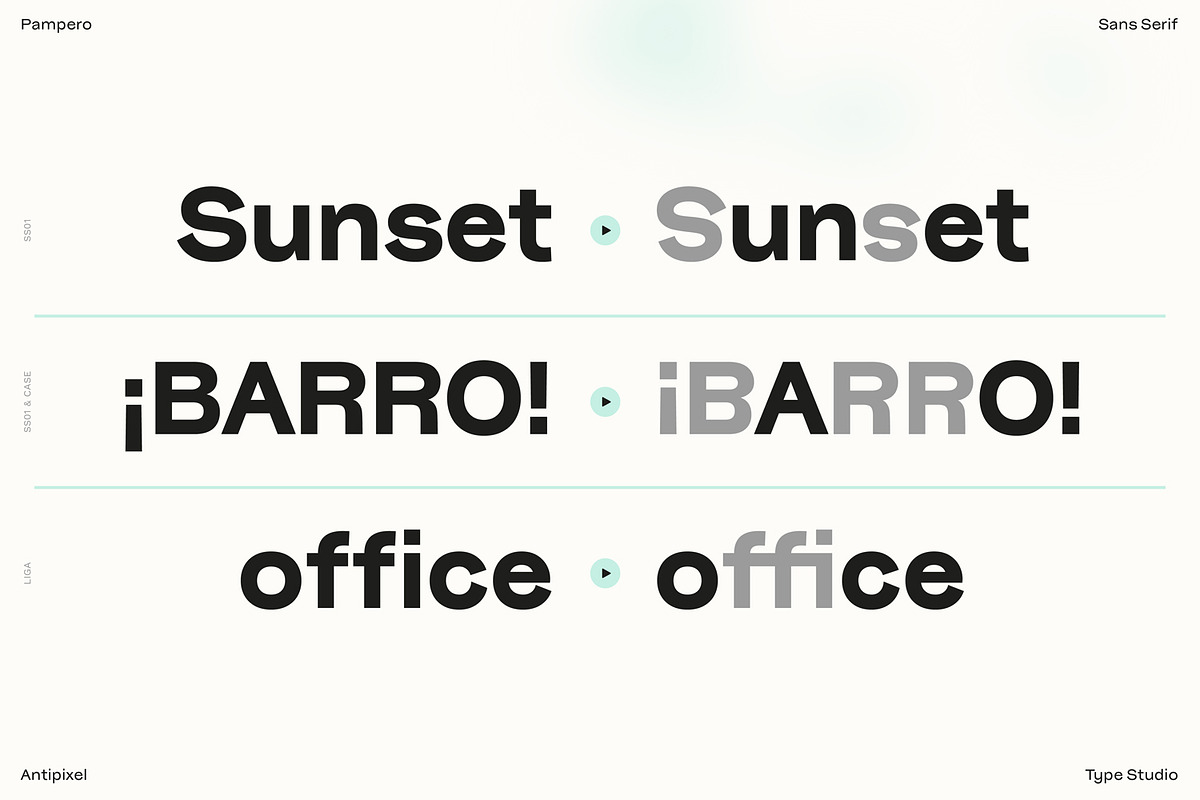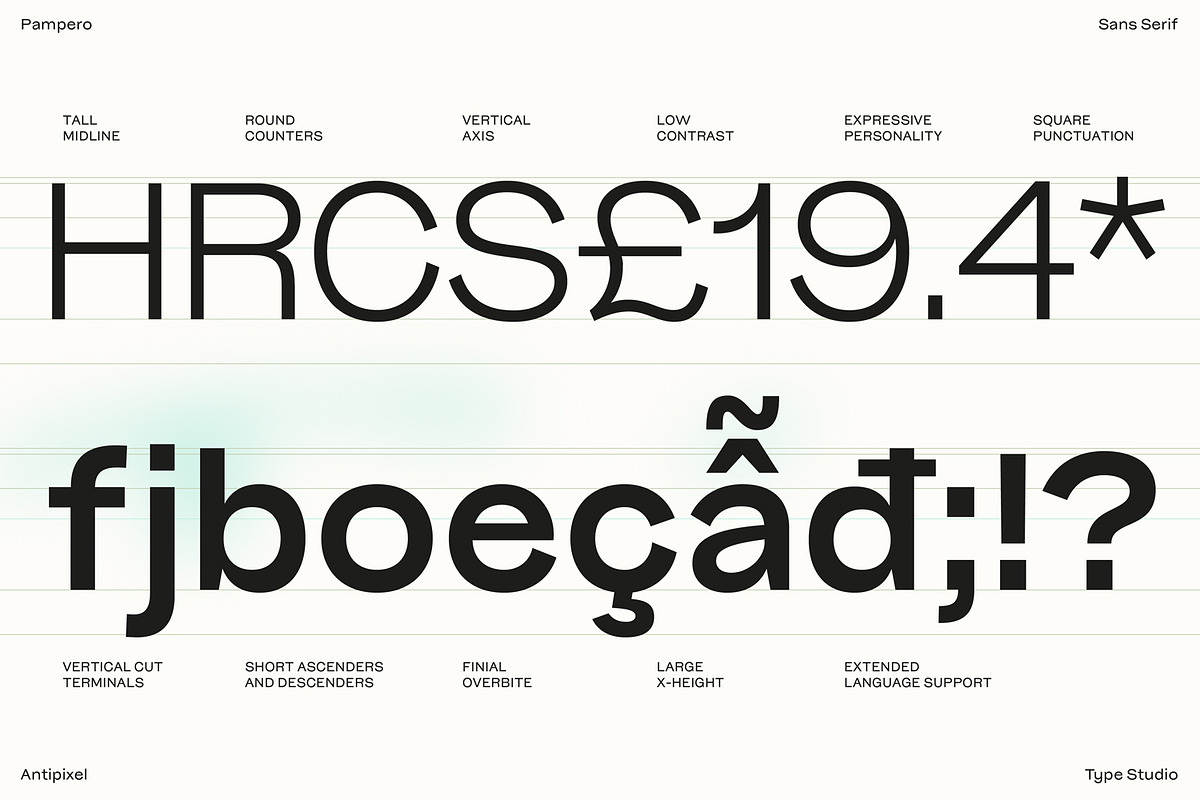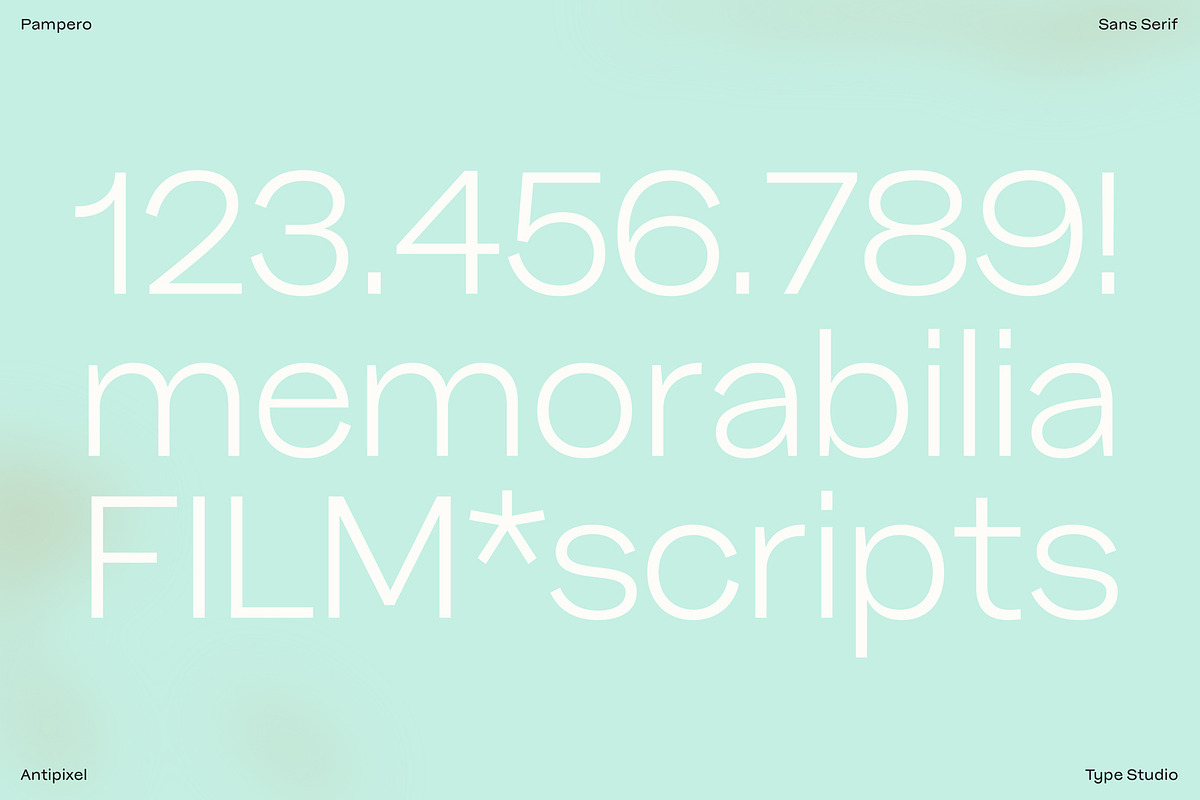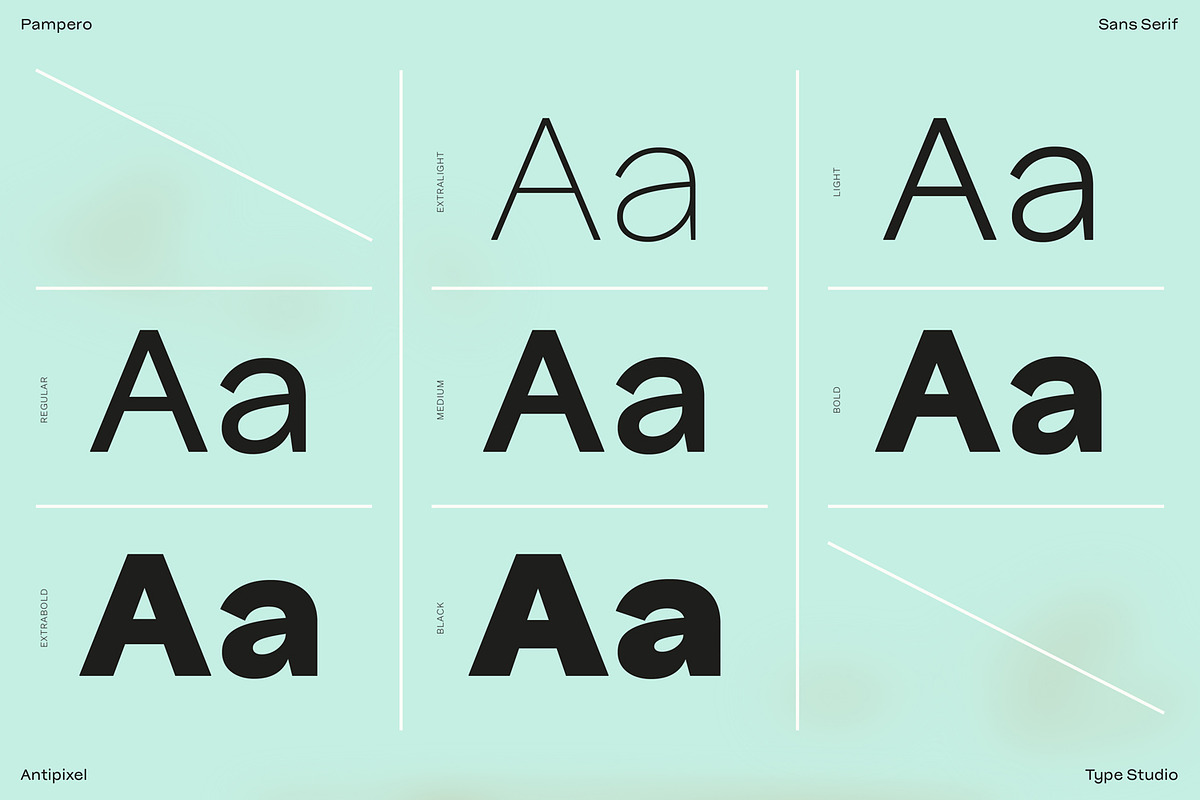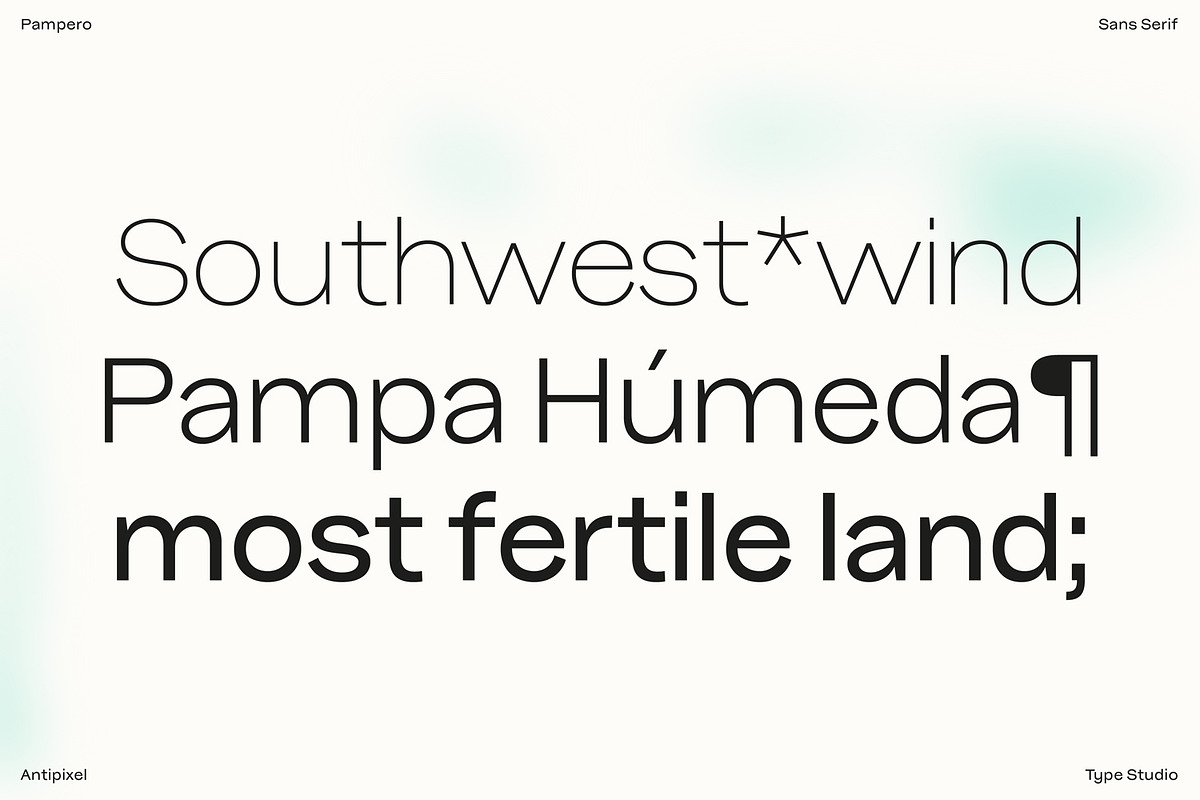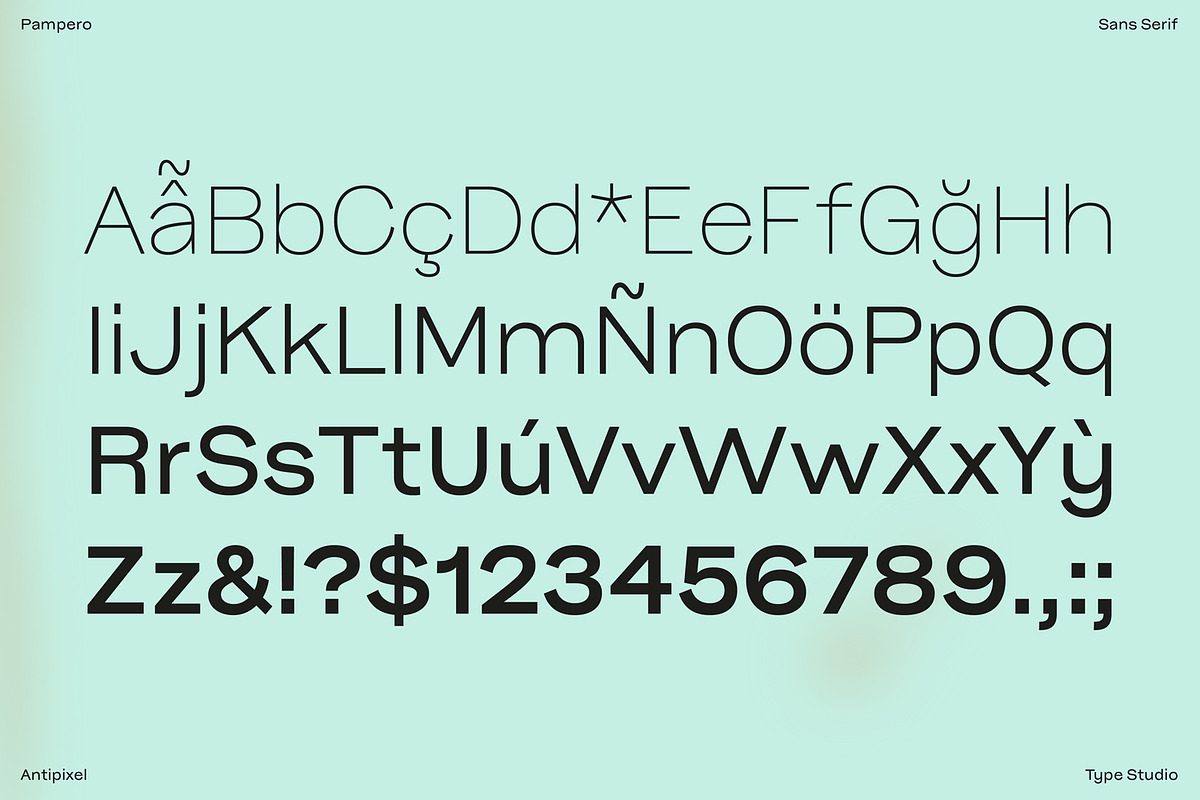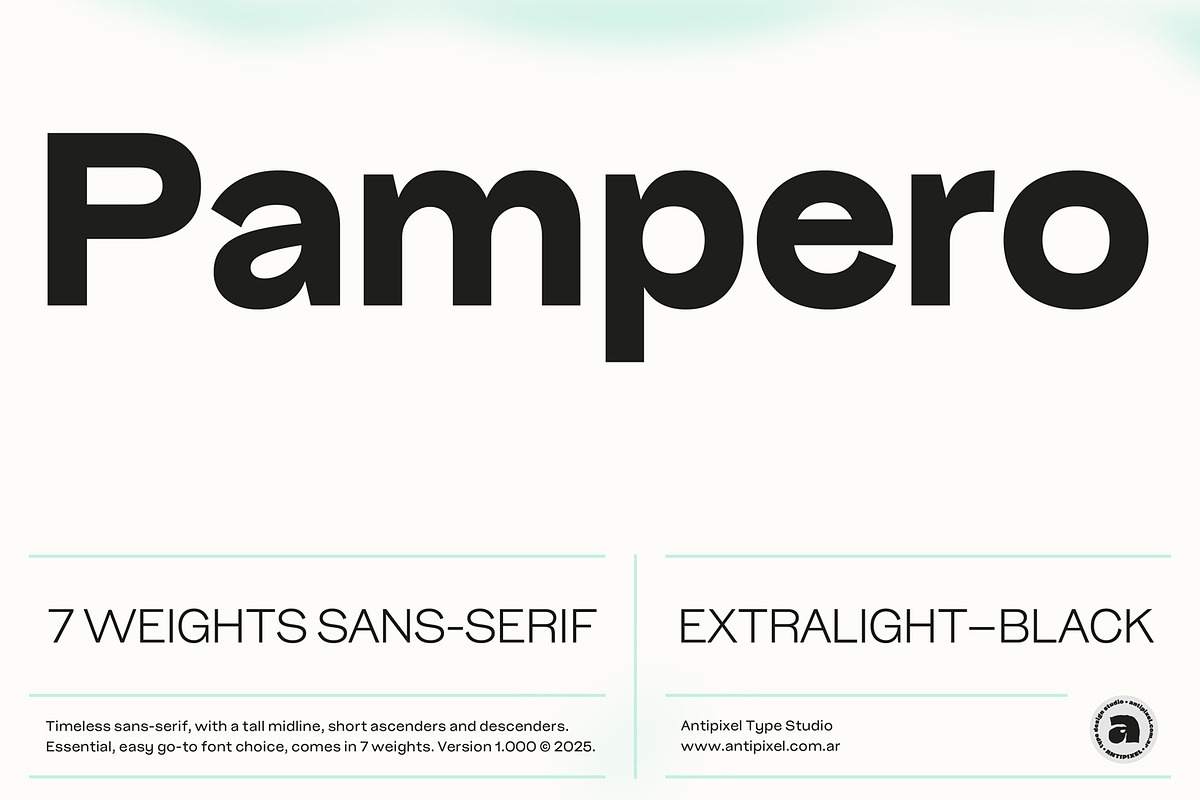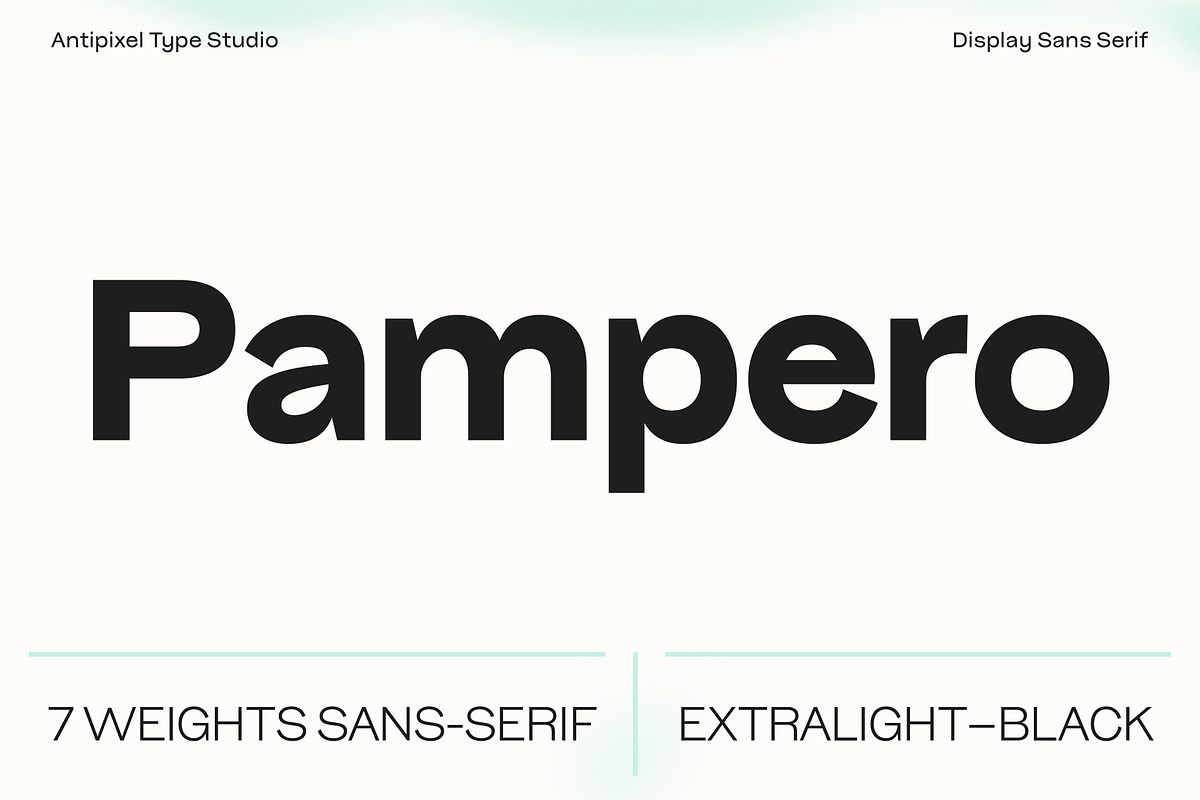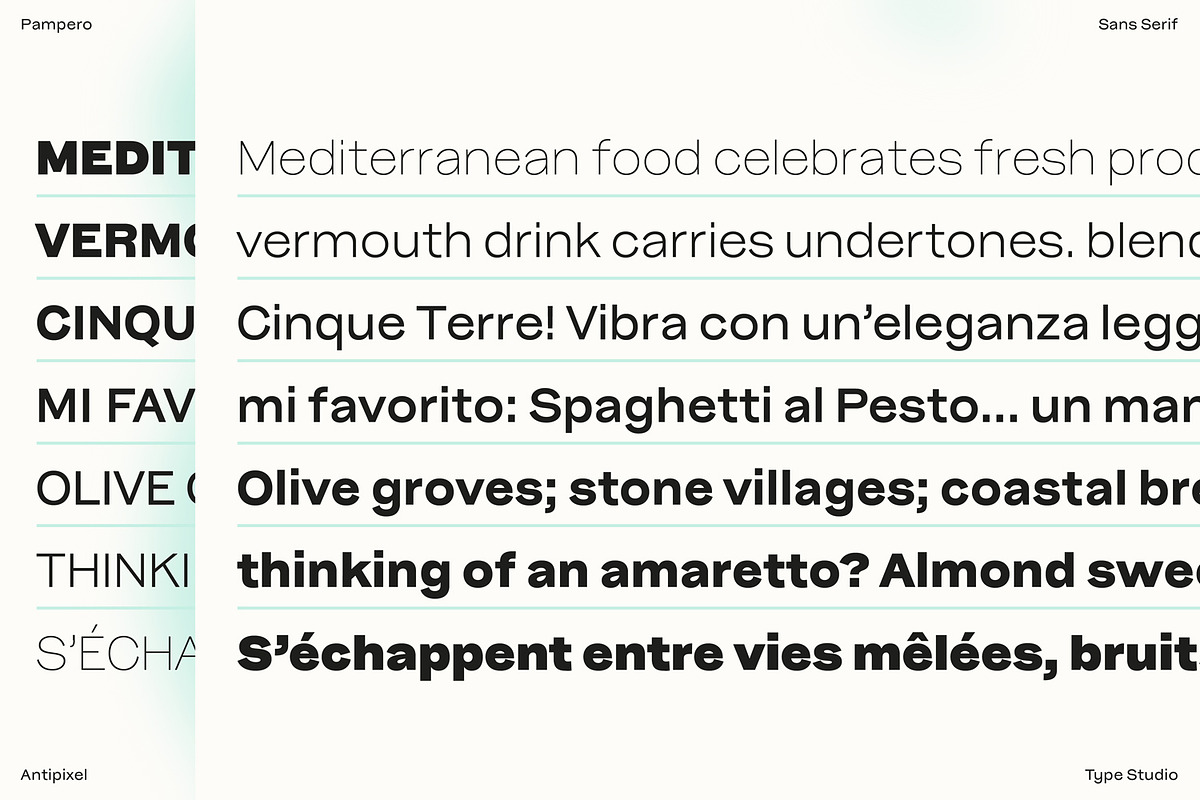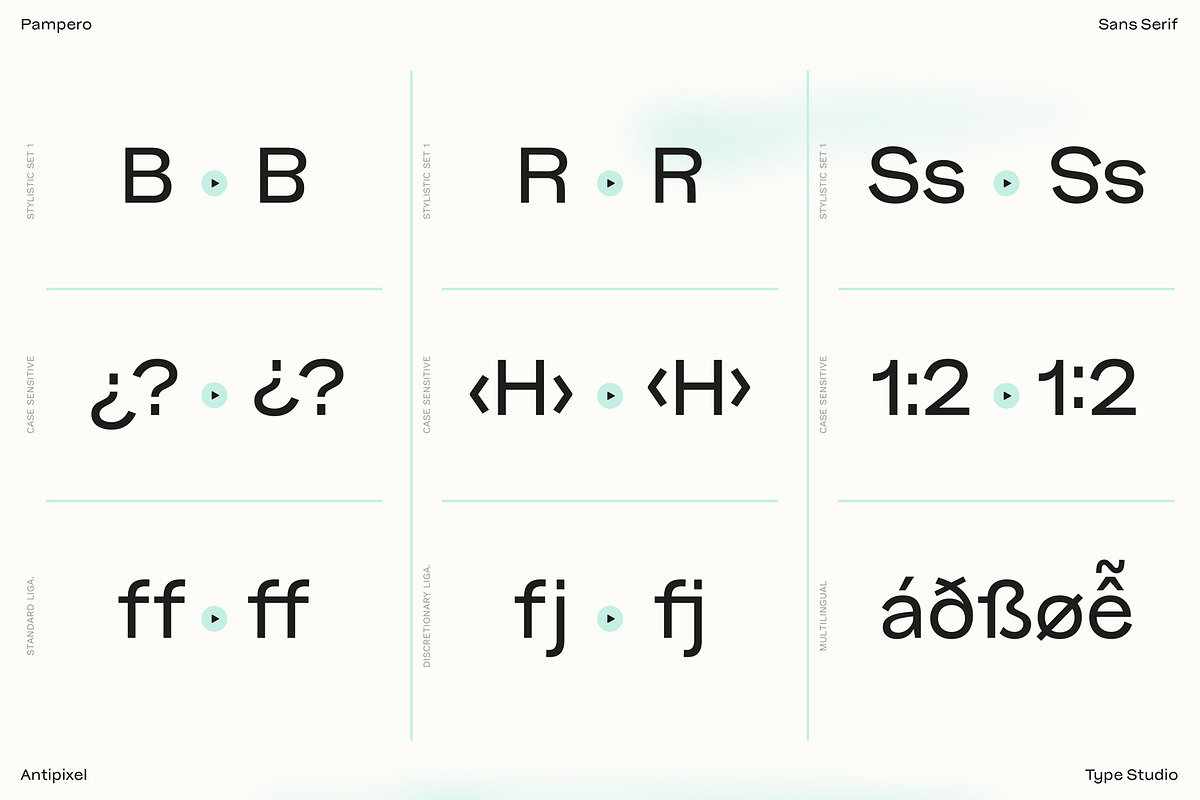
Pampero | Modern Display & Text Sans
Introducing Pampero, an essential modern sans-serif typeface built to be every designer’s go-to font choice. Extremely flexible and versatile, Pampero effortlessly adapts to any design context, whether it is as the lead font with its strong personality, or by pairing it as the low-key companion.
This type family includes seven font weights ready to perform in any design workflow. Available in ExtraLight, Light, Regular, Medium, Bold, ExtraBold, and Black.
Designed with precision and intention, Pampero features high-quality contours that perform beautifully at large-scale settings, from posters to billboards, while its clear, defined forms remain effective in smaller settings, like short copy or captions, thanks to its readability.
As a versatile typeface for branding and logotypes, Pampero brings energy and attitude to any context. From a bold streetwear brand to an underground music festival, an outdoor adventure campaign or a contemporary craft beer label. It is perfect for posters, book covers, editorial, web design, packaging, movie titles, visual identities, and more.
Pampero features low-contrast strokes, large x-height, short ascenders and descenders, tall midline, and balanced proportions. Every shape is optimized for clarity, balance, and legibility.
Unapologetic and confident, Pampero is meant to make an impact across multiple languages. With extensive glyph support covering 216 languages, it is built for international reach and global use.
ExtraLight, Light, Regular, Medium, Bold, ExtraBold, Black (uppercase & lowercase)
Numbers, punctuation, ligatures, case-sensitive characters, monetary and mathematical symbols, and more!